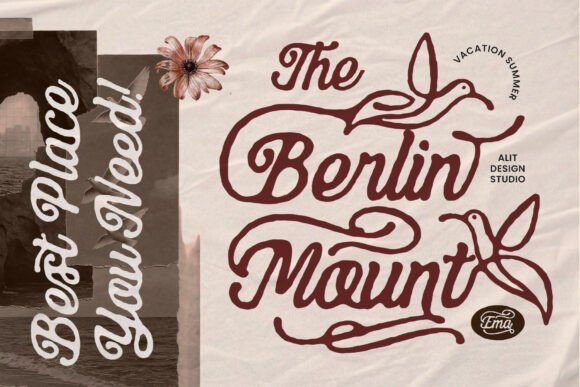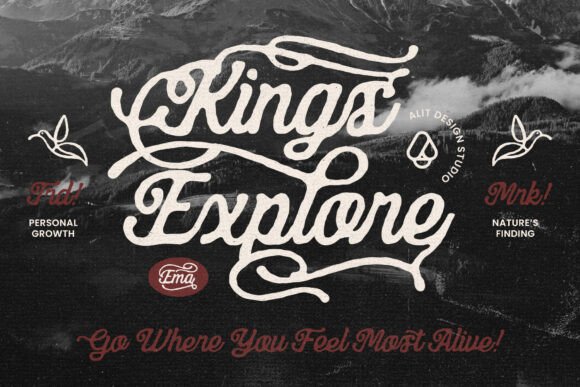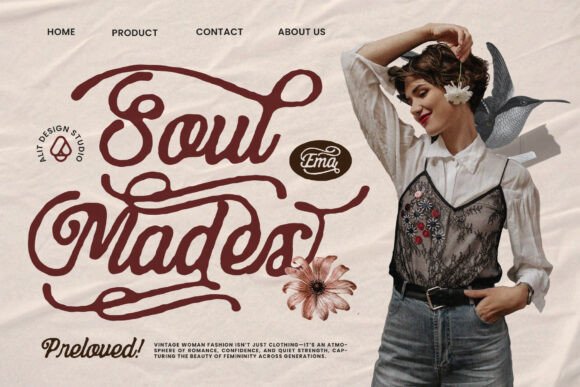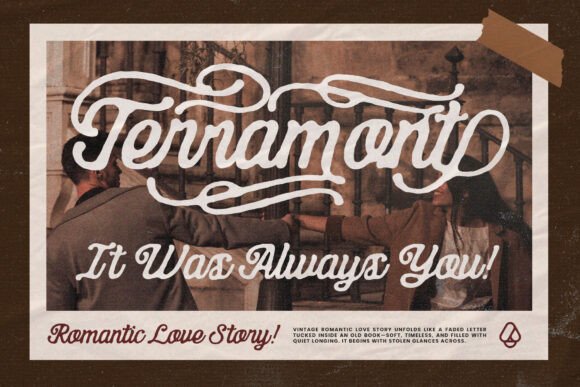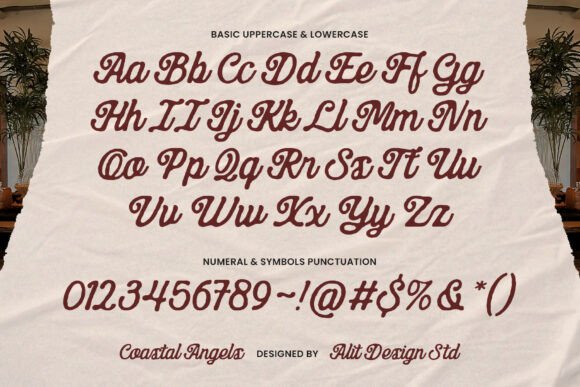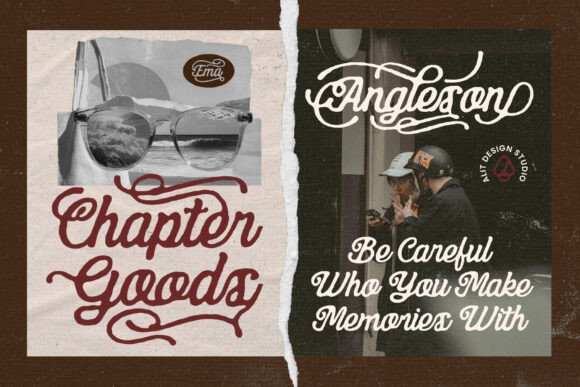
Introducing Coastal Angels Font: Capture the Timeless Charm of Sun-Kissed Shores
Imagine yourself strolling along a sun-drenched coastline, surrounded by the nostalgic charm of vintage beach signage. The Coastal Angels font is here to transport you to a bygone era, evoking the carefree spirit of mid-century coastal towns. This premium vintage script typeface is designed to infuse your designs with a sense of timeless appeal, perfect for crafters and designers seeking to create captivating visuals.
The Essence of Coastal Angels Font
The Coastal Angels font boasts thick, fluid strokes and elaborate, looping swashes that mimic the hand-lettered style of classic coastal signage. Its rhythmic flow and retro silhouette make it an exceptional choice for a wide range of design applications, from surf-inspired branding to summer event posters, lifestyle apparel designs, and editorial headers.
Design Features and Characteristics
The Coastal Angels font is characterized by its:
- Thick, fluid strokes: Emulating the confident brushstrokes of vintage sign painters, these strokes add a sense of movement and energy to your designs.
- Elaborate, looping swashes: These decorative elements add a touch of whimsy and playfulness, perfect for creating eye-catching visuals.
- Retro silhouette: The font’s classic shape and proportions evoke the nostalgia of mid-century design, while its fluid strokes keep it feeling fresh and modern.
Perfect for Coastal-Inspired Designs
The Coastal Angels font is tailor-made for designers and crafters seeking to create captivating coastal-inspired visuals. Here are just a few ideas to get you started:
- Surf-inspired branding: Create a logo or identity system for a surf school, beachwear brand, or coastal cafe that captures the laid-back, adventurous spirit of the coast.
- Summer event posters: Design eye-catching posters for beach festivals, concerts, or outdoor events that evoke the fun, carefree atmosphere of a summer evening.
- Lifestyle apparel designs: Add a touch of coastal charm to your apparel designs, from t-shirts to tote bags, with the Coastal Angels font.
- Editorial headers: Use the font to create stunning headers for travel articles, blog posts, or magazine features that transport readers to the coast.
Why Choose Coastal Angels Font?
With the Coastal Angels font, you’ll enjoy:
- Timeless appeal: The font’s classic design ensures it will remain stylish for years to come, without dating quickly.
- Artistic freedom: The font’s fluid strokes and swashes give you the creative flexibility to experiment with different styles and effects.
- Classic “new vintage” sophistication: The Coastal Angels font strikes the perfect balance between nostalgic charm and modern flair.
Capture the essence of sun-kissed shores with the Coastal Angels font, a premium vintage script typeface designed to evoke the carefree spirit of mid-century coastal towns. Perfect for designers and crafters seeking to create captivating coastal-inspired visuals, this font delivers a sense of artistic freedom and classic sophistication to every word. Whether you’re crafting a logo, poster, or editorial header, the Coastal Angels font is sure to transport your audience to a bygone era of sun-drenched fun and adventure.